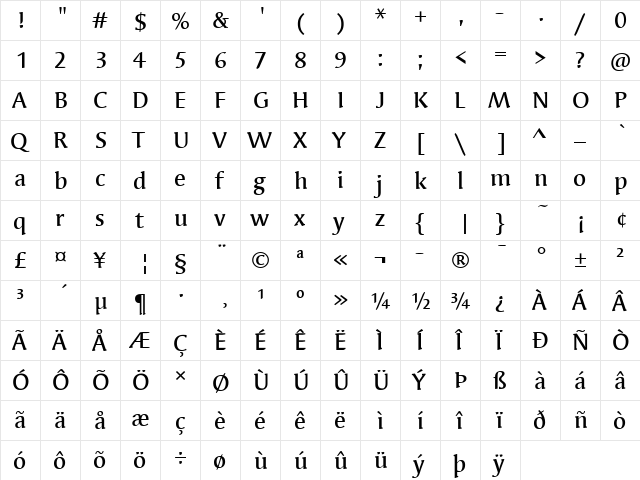
SyndorITC Medium
Design Context for SyndorITC Typeface
SyndorITC takes a measured approach to typography — its balanced proportions and neutral character make it a reliable workhorse for both digital and print work.